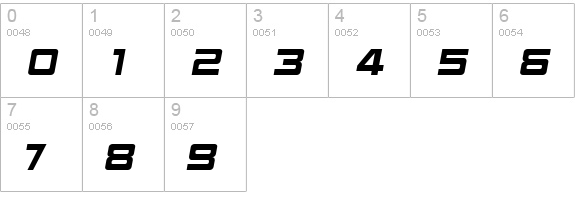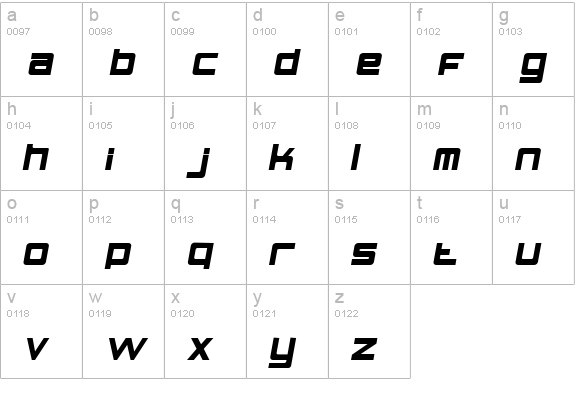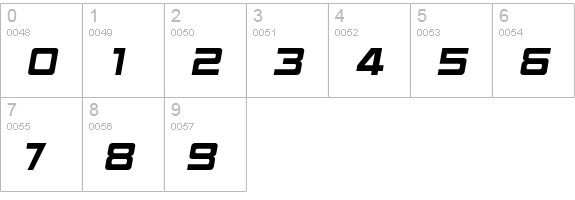
BN Elements Font Details
BN Elements font is a versatile and modern typeface that effortlessly blends elegance with simplicity. Its clean lines and balanced proportions make it perfect for a wide range of design projects, from branding to editorial design. The font features a unique combination of sharp corners and smooth curves, giving it a distinct and sophisticated look. One of the best things about BN Elements font is that it is completely free to download. You can easily access this stylish typeface at FontsMarket.com, where you can find a wide selection of high-quality fonts for all your design needs. Whether you are working on a personal project or a professional assignment, BN Elements font is sure to add a touch of class and sophistication to your work. Don't miss out on the opportunity to enhance your designs with this beautiful font, available for free at FontsMarket.com.